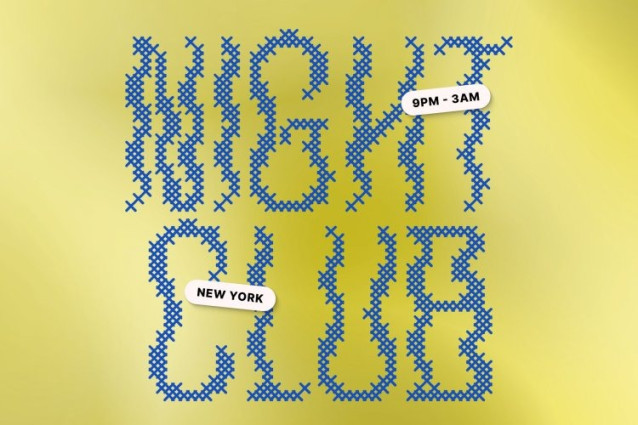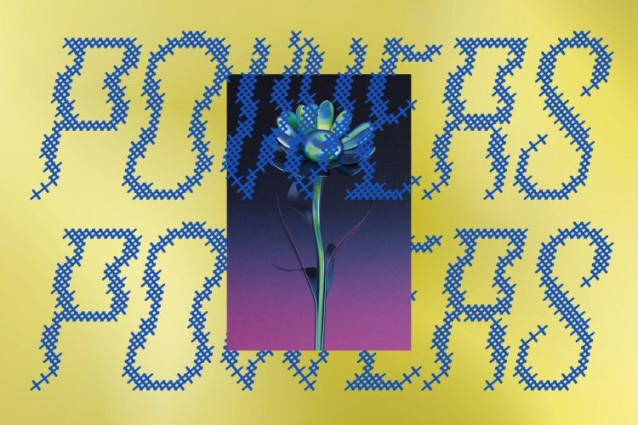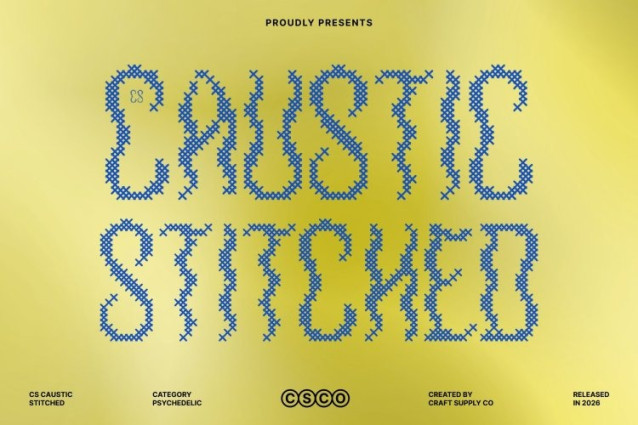
CS Caustic Stitched Font
CS Caustic Stitched Font – This is a modern display font that blends psychedelic expression with bold contemporary design. Inspired by the visual culture of the 1960s and 1970s, its letterforms bend, wave, and distort into fluid shapes that create a lively, dynamic rhythm. The stitched texture adds a tactile, handcrafted feel that enhances its artistic and expressive personality.
Funky Creativity with Handmade Character
Playful patterns and unconventional shapes bring a cheerful, funky tone to every letter. The stitched effect softens the bold forms and introduces warmth, making the font feel personal and creative rather than purely digital. This fusion of psychedelic styling and handmade texture results in a distinctive and memorable typographic voice.
Energetic and Expressive Visual Impact
This font thrives on visual movement and bold expression. Its vibrant personality makes text feel alive and animated, helping designs stand out instantly while maintaining a cohesive and artistic look.
Perfect for Music, Events, and Creative Promotion
Ideal for music posters, festival branding, merchandise, and experimental graphics, this font brings an energetic and unconventional spirit to any project. It’s a perfect choice for designers seeking typography that feels bold, playful, and full of creative freedom.